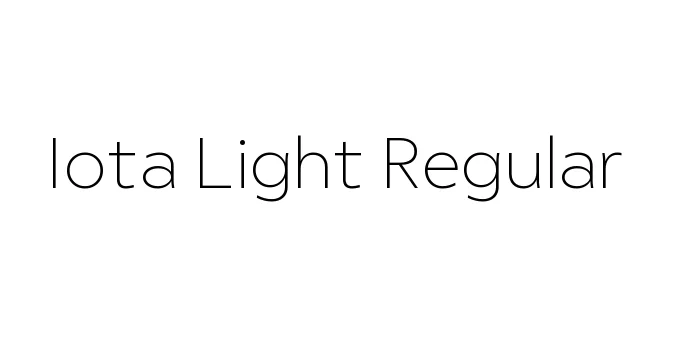
Iota Light Regular
Designed by Jonathan Hill
Iota Light Regular is a meticulously crafted geometric sans-serif typeface that emphasizes precision and visual balance. Designed to meet the demands of contemporary digital interfaces, it features generous x-heights and open apertures that enhance readability across various screen resolutions. Its structure is rooted in mathematical clarity, offering a neutral yet sophisticated aesthetic that strips away unnecessary ornamentation for a truly modern typographic experience.
The Light Regular weight of the Iota family is particularly renowned for its airy and elegant presence in editorial layouts. It functions exceptionally well in high-end branding and corporate communications where a sense of openness and forward-thinking design is required. Whether applied to minimalist web headers or intricate print brochures, Iota Light Regular maintains its professional integrity and stylistic consistency, making it a versatile tool for designers worldwide.
Iota Light Regular Best Uses
Perfect for clean, minimalist website headers and body text.
Ideal for tech-focused or modern luxury brand logos and stationery.
Highly legible for user interface elements and navigational menus.
Great for sophisticated magazine spreads and high-end lookbooks.